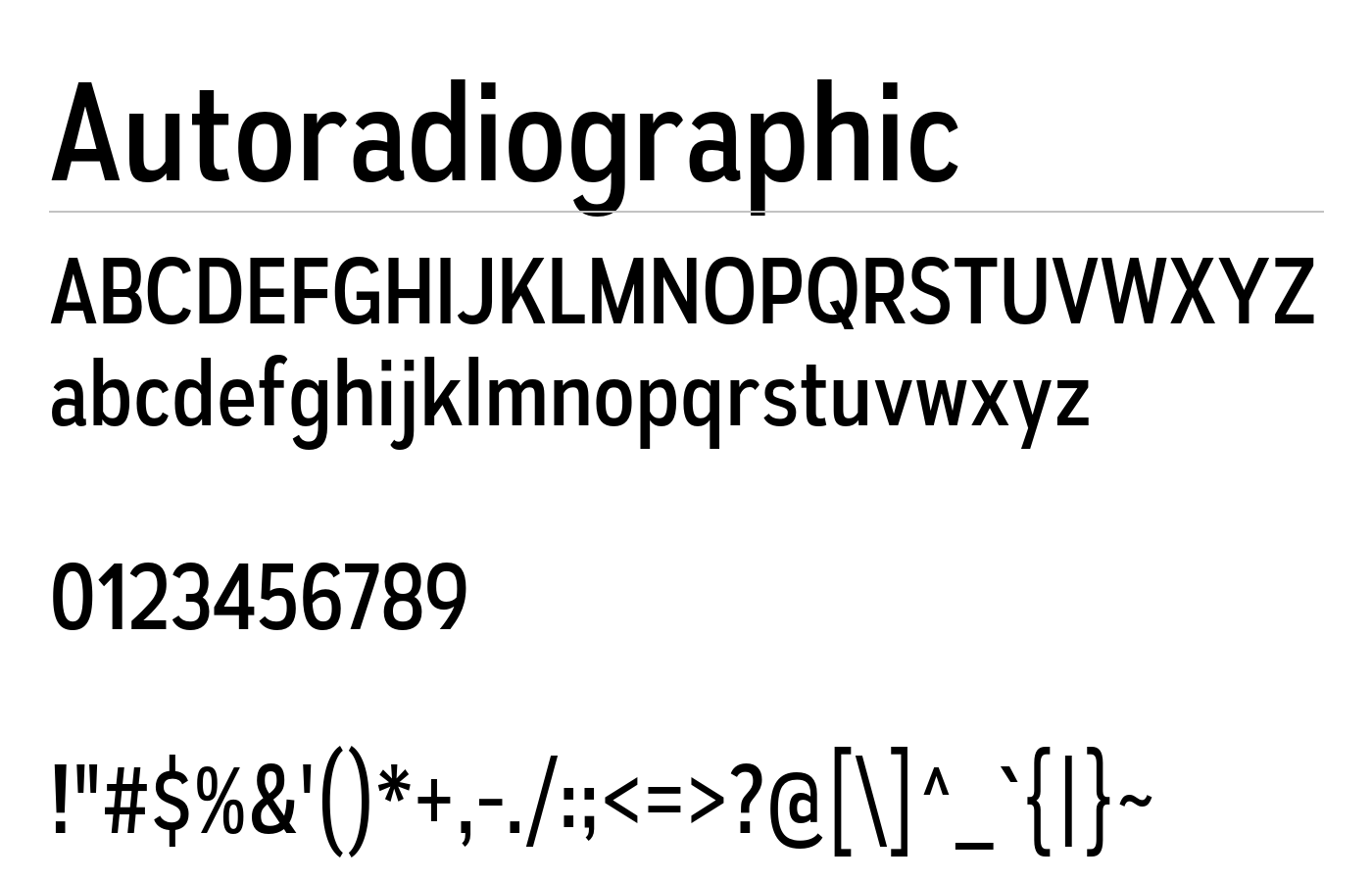
Autoradiographic is a narrow, sans serif font with a clean, modern feel. Its tall, condensed letterforms and uniform stroke weight give it a technical and precise appearance, making it ideal for clear, compact text in editorial design, headlines, and digital interfaces. This font communicates professionalism with a subtle touch of futurism, suitable for technology brands and contemporary projects.
Autoradiographic Font
About Autoradiographic Font
| Font family | Autoradiographic Font |
| Designer | Ray Larabie |